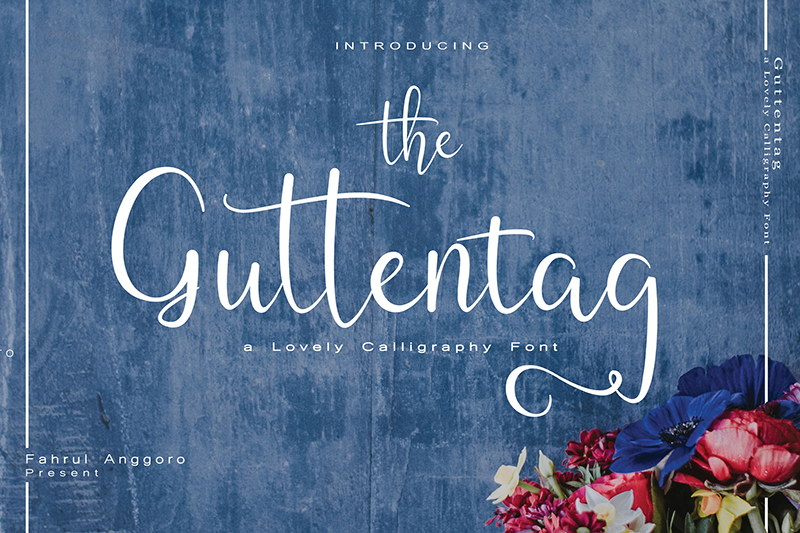
Preview and download Guttentag Font. Created by Mohamad Fahrul Anggoro in Script Calligraphy styles with Free for personal use license.
Hi, Thanks for downloaded my product font Demo Version. and, now I want to intrduce my new font Called "The Guttentag" . Guttentag is germany language means good morning. Guttentag is a lovely modern script Calligraphy font. It's very perfect for everything your business and design needs such as wedding event, logos, branding and much more. NOTE : This demo font is PERSONAL USE ONLY! But any donation is very appreciated. - Paypal account for donation : https://paypal.me/FahrulAnggoro - Link to purchase the full version and commercial license: https://www.creativefabrica.com/product/guttentag/ - Please visit our store for more great fonts and follow my Store in Creativefabrica for update: https://www.creativefabrica.com/designer/fahrul-anggoro/ - If you need an extented license or corporate license, please contact me at : mohamadfahrul86@gmail.com |